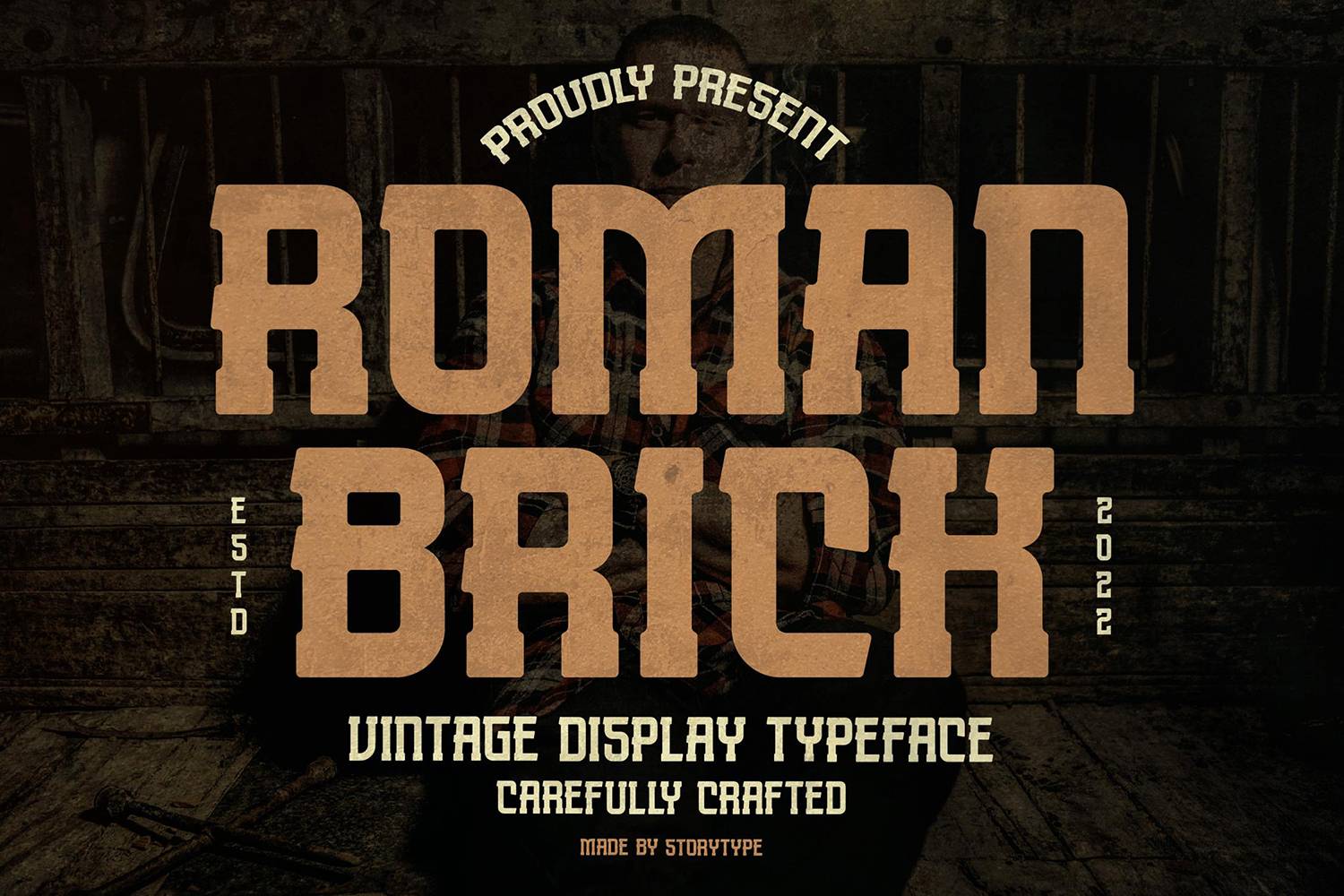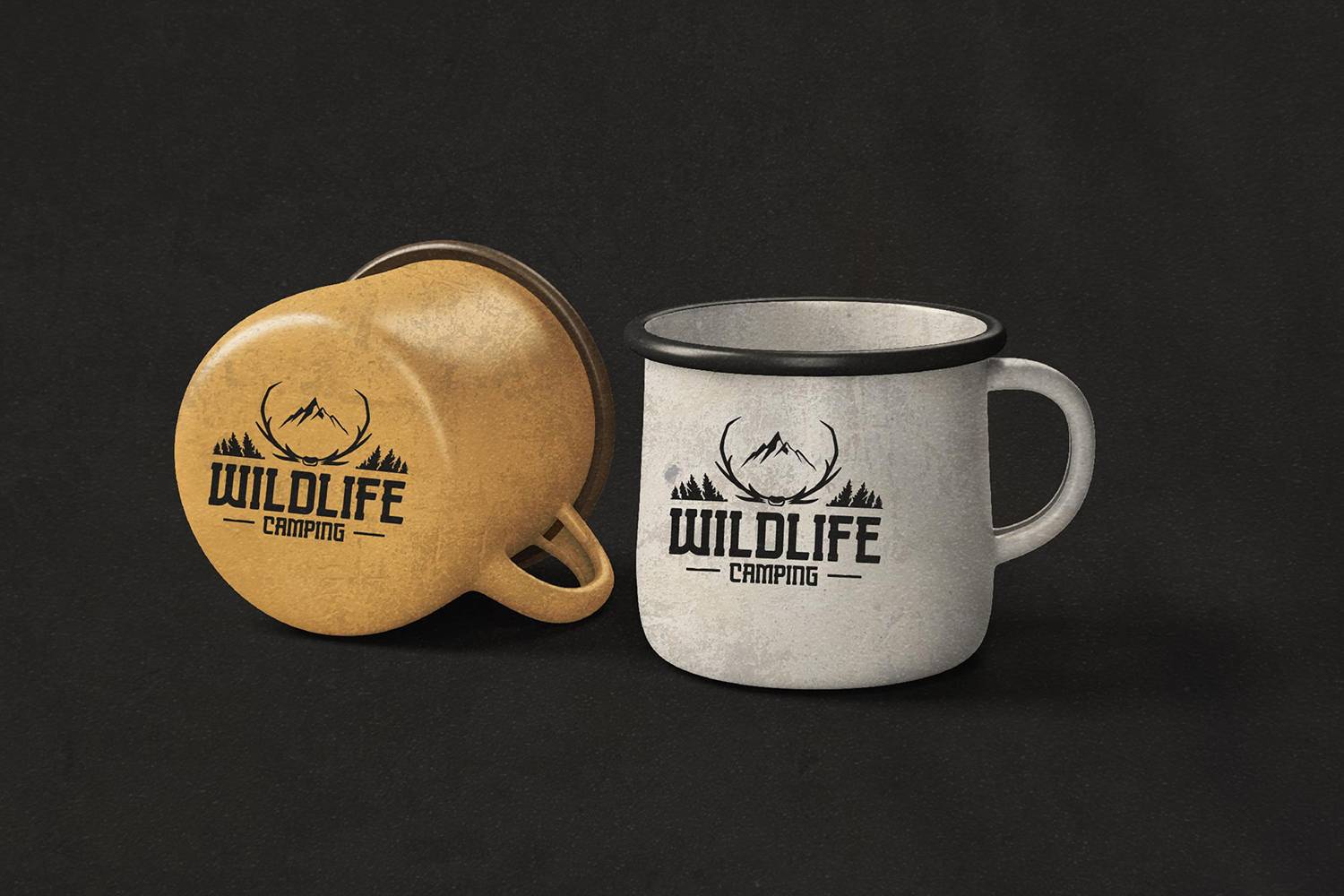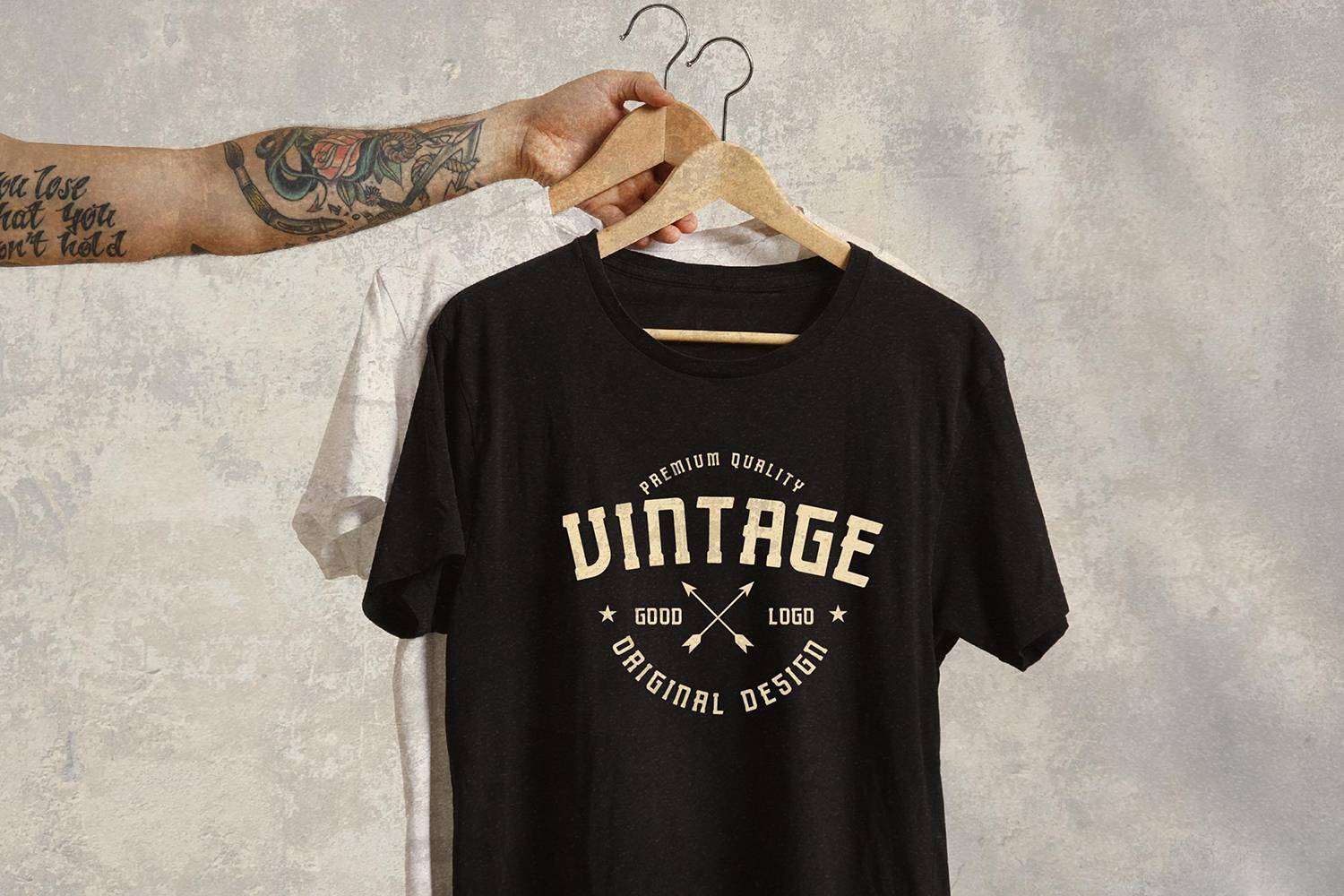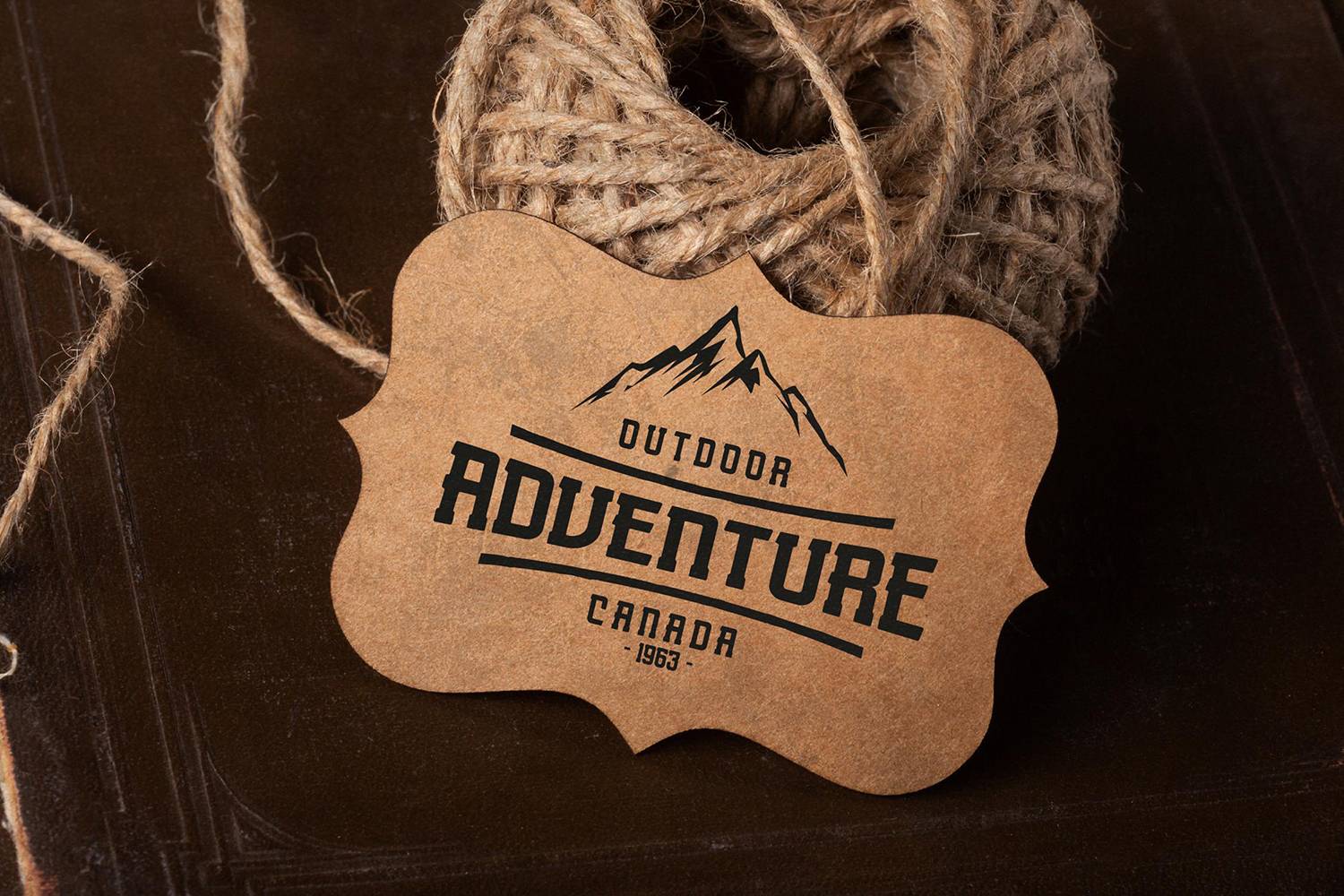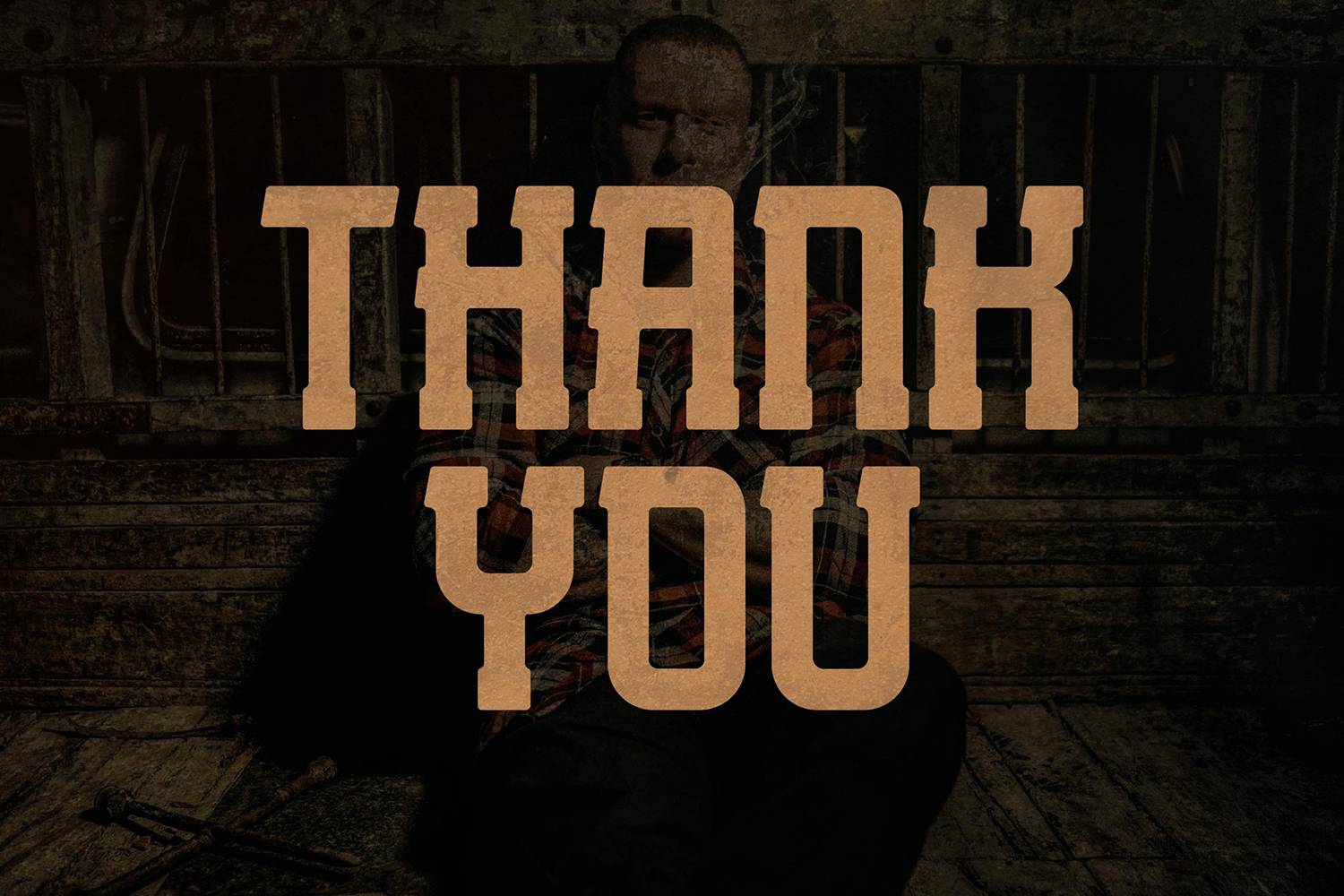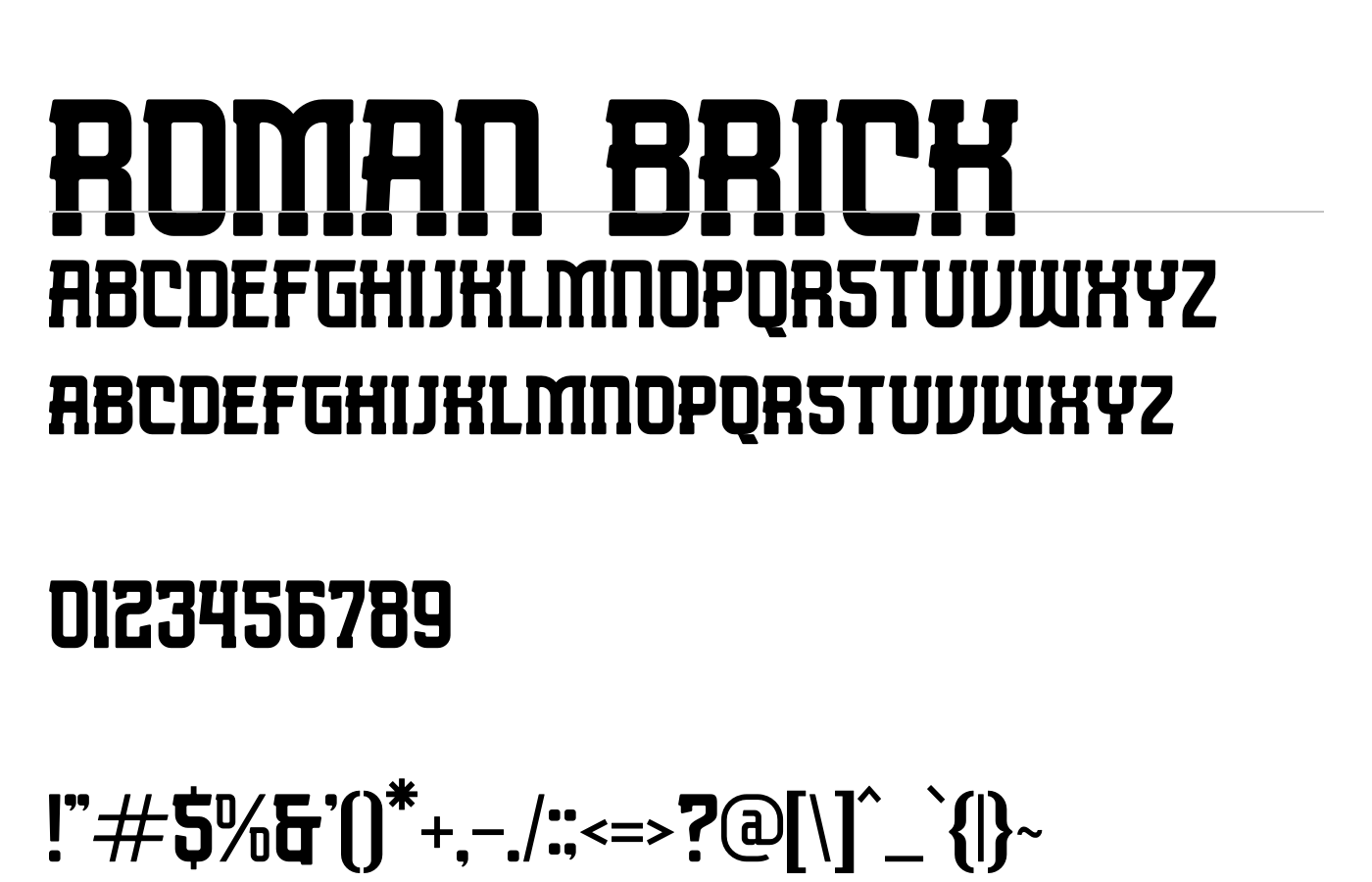
Roman Brick is a bold, condensed slab serif font with a strong, blocky appearance reminiscent of vintage wood or metal type used in signage and posters. Its uniform stroke weight and squared serifs give it a sturdy, industrial feel, making it ideal for bold headlines, branding, and packaging that require a confident, impactful look with a touch of retro character.
Roman Brick Font
About Roman Brick Font